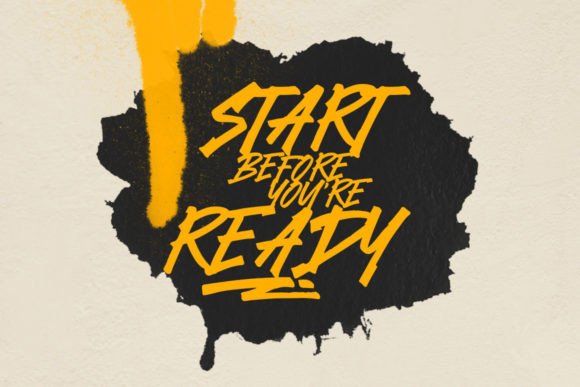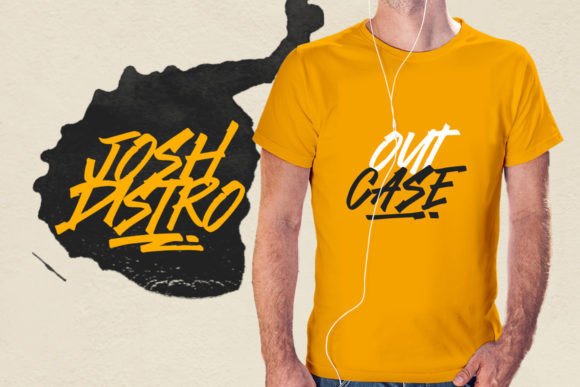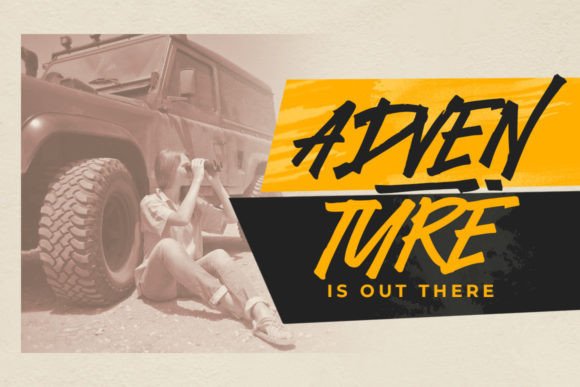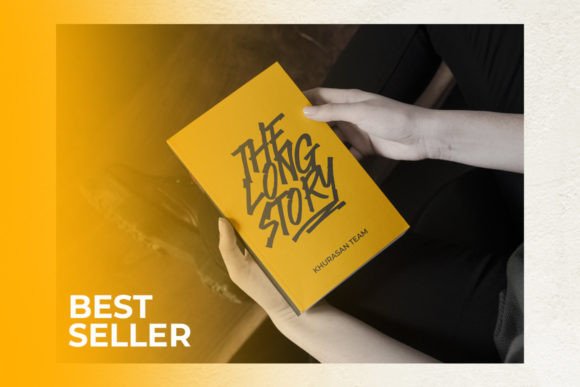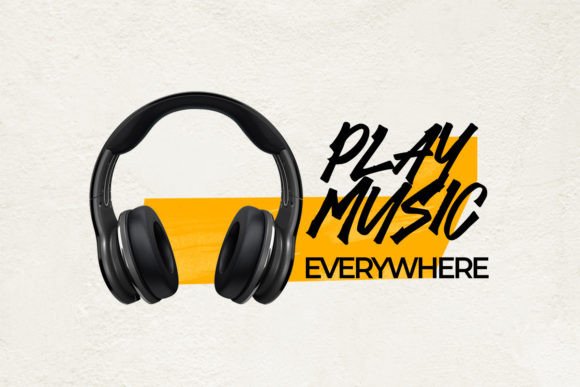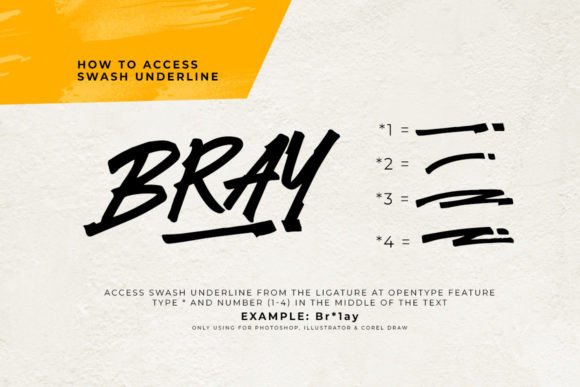
Introduction to Dominos Blast Font
You know that feeling when you’re staring at a blank page, and suddenly a spark of creativity hits you? The ideas start flowing, and you can’t wait to bring them to life. For designers, moments like these are what make all the hard work worth it. And when you need a font that’s going to make your creative project truly pop, you need something special.
Enter the Dominos Blast Font – a modern brush font that’s perfect for posters, logos, magazines, book covers, banners, and many more! This quirky display font is designed to add a touch of uniqueness to your designs, and with its high-quality design, it’s the perfect resource for any creative project. Whether you’re looking for a free download or a reliable design tool, the Dominos Blast Font has got you covered.
With its transparent background and versatile design, the Dominos Blast Font is a valuable asset for designers of all levels. So why wait? Get this fantastic font and unleash your creativity with the Dominos Blast Font today!
Dominos Blast Font
- Unique and creative font design ideal for various projects
- Perfect design resource for creative projects requiring a modern touch
- Features a transparent background for easy customization and layering
- Includes 4 different font styles with varying levels of boldness and regularity
Honest Review: Dominos Blast Font
I recently stumbled upon the Dominos Blast Font while searching for a free download to add some excitement to a creative project. Initially, I was drawn to its unique design and high-quality texture.
Here are some things that work well about the Dominos Blast Font:
- Its vibrant colors and dynamic texture add a lot of visual interest to any design.
- It’s perfect for use on a transparent background, allowing the background to shine through and create a sense of depth.
- The font is highly versatile and can be used in a variety of creative contexts, from digital graphics to print materials.
- The font may not be suitable for use in smaller text sizes, as the texture can become overwhelming.
- Some users may find the font’s bold style to be too overpowering.
⚠️ Overall, I would say that the Dominos Blast Font is a great design resource for those looking to add some excitement to their creative project. While it may not be perfect for every use case, its high-quality texture and vibrant colors make it a valuable addition to any design library. With a little creativity and restraint, this font can be a real showstopper! ✨
The Dominos Blast Font is perfect for various creative projects, including: logos, graphics, brochures, posters, and more. Its versatility and high quality make it a valuable design resource.